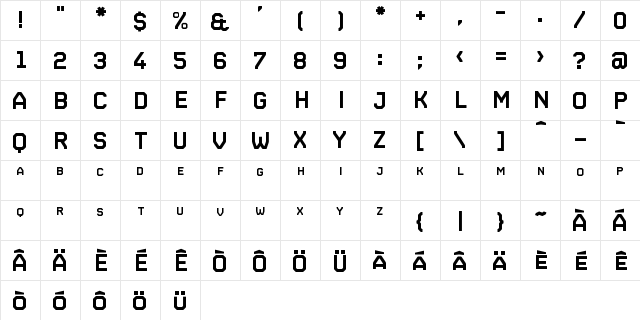
TransAM-Regular Regular
Design Context for TransAM-Regular Typeface
TransAM-Regular takes a measured approach to typography — its balanced proportions and neutral character make it a reliable workhorse for both digital and print work.
Pro Tip: Use TransAM-Regular in both headline and body roles to test its range before committing to a single application.